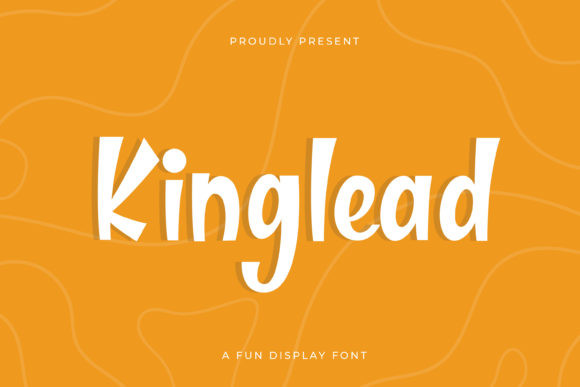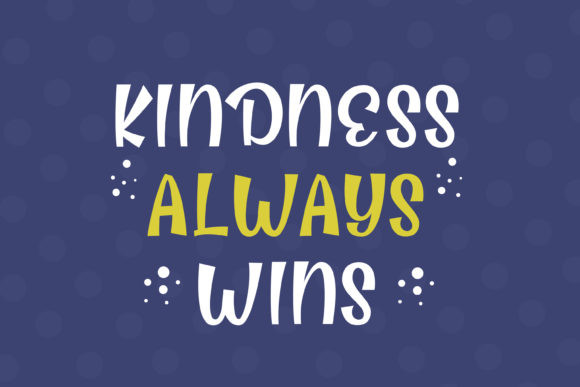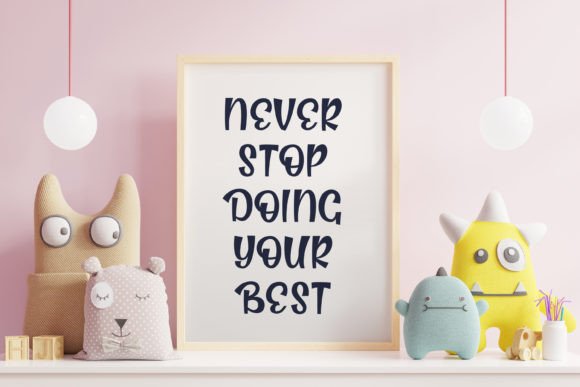
Kinglead Font
Kinglead is a casual and fun display font. This font is perfect for crafts, product packaging, product designs, label, branding projects, logo, wedding designs, social media posts, advertisements, watermark, invitation, stationery and more.